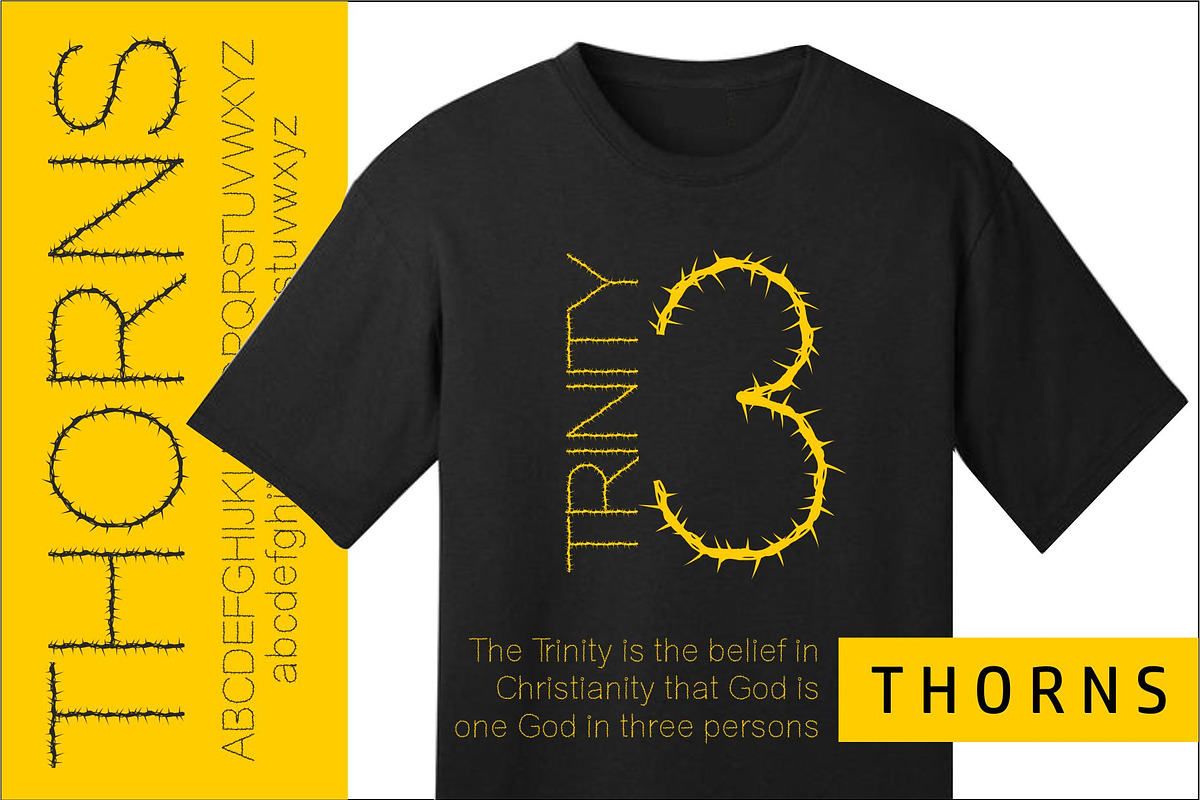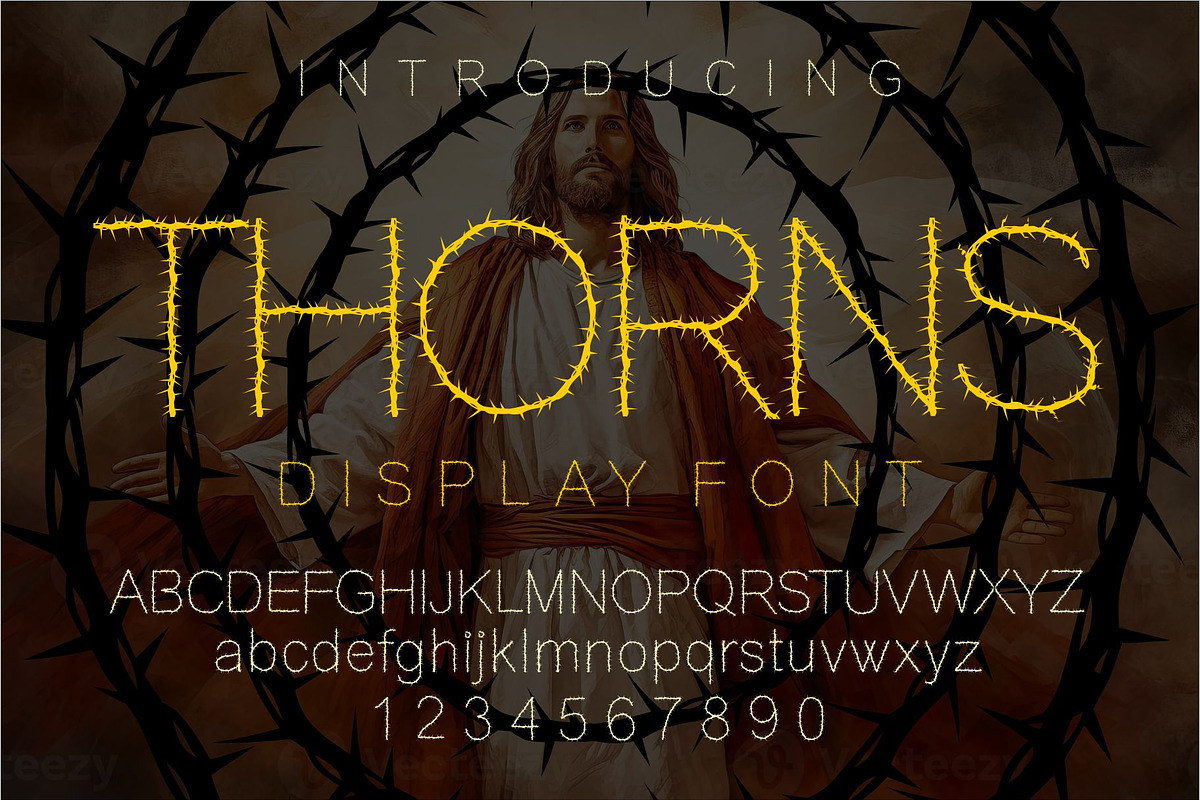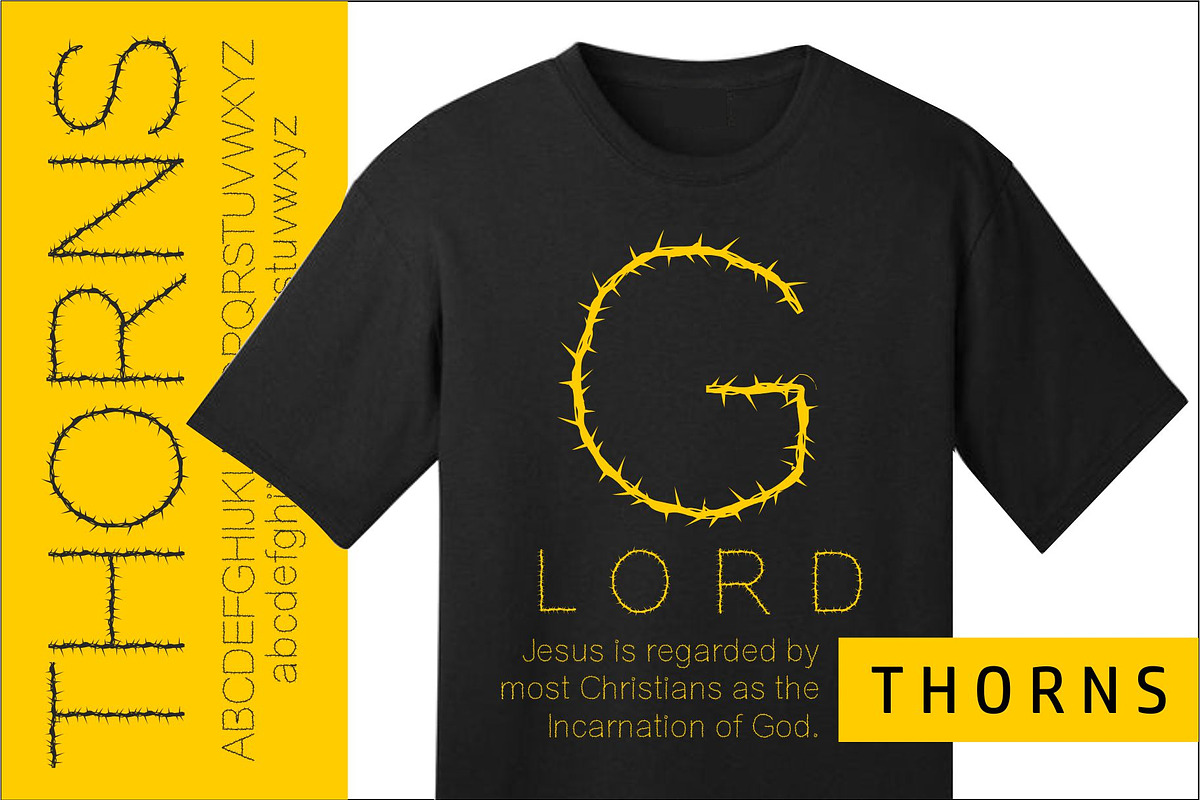
Thorns
THORNS is a unique and modern display font. Featuring a bold and sharp, it offers support for capital font. Compatible with tools such as Photoshop or silhouette design studio. its strong and sharp design. its playfulness make it great for creative projects, be it inspirational wall posters or for communicating your brand